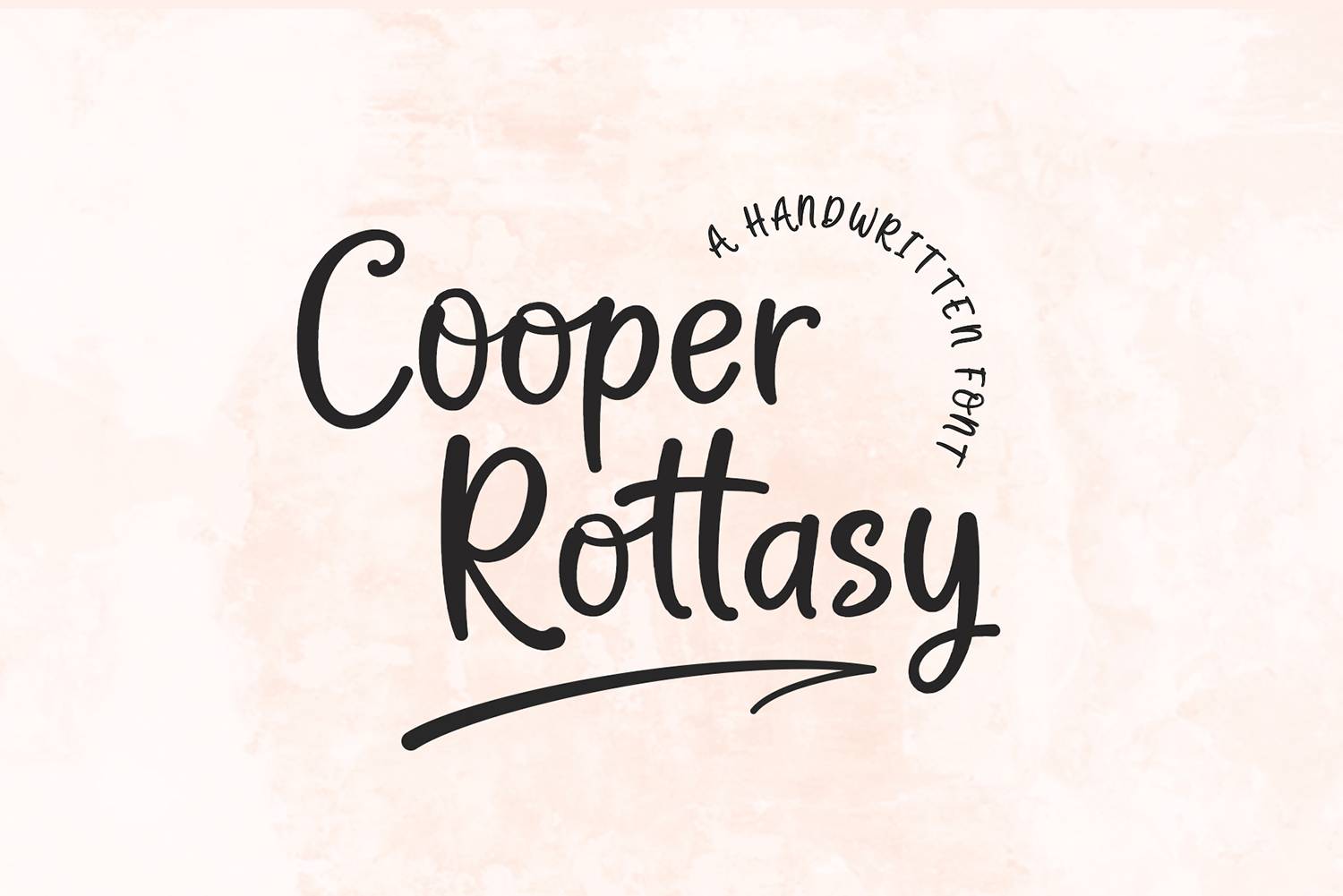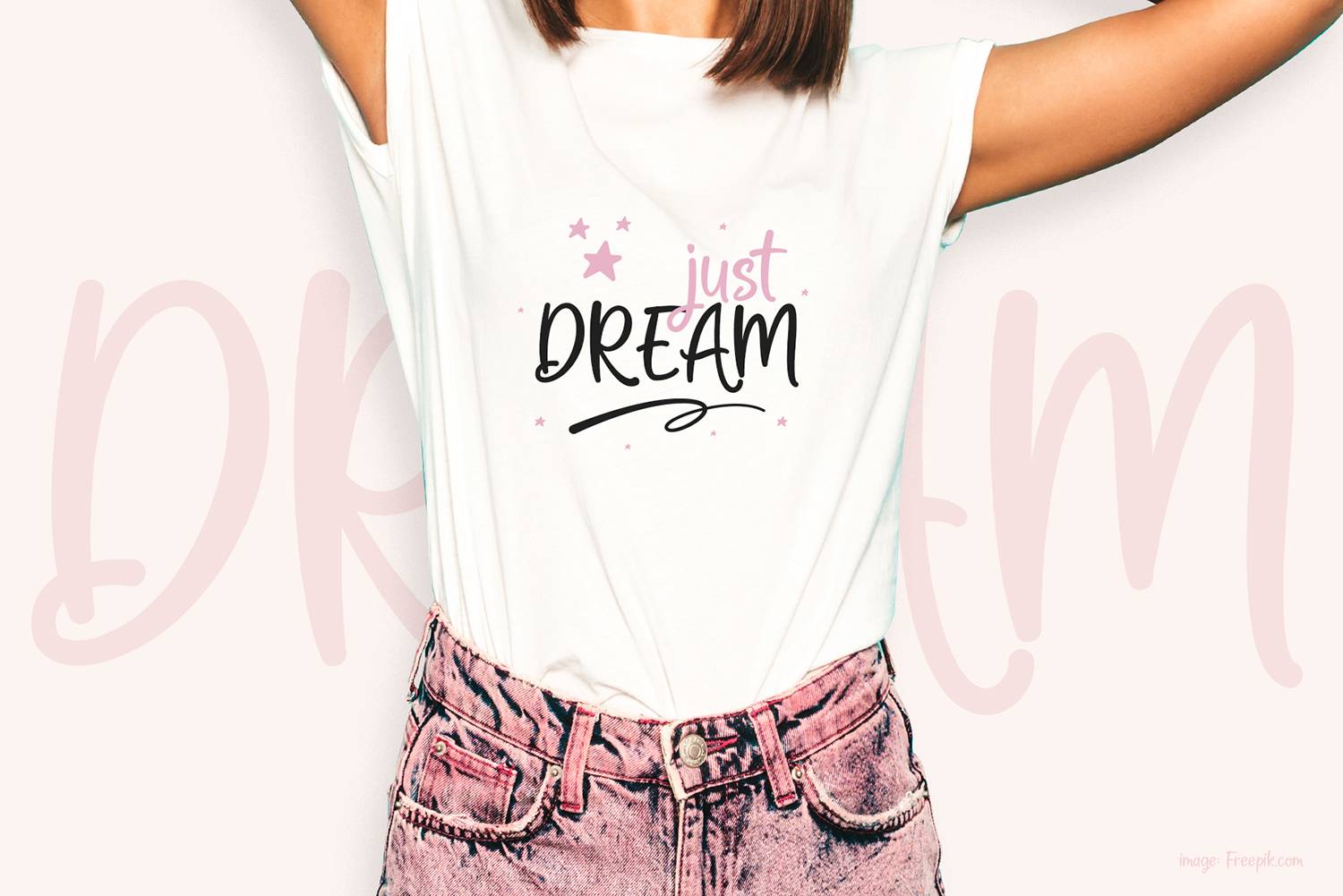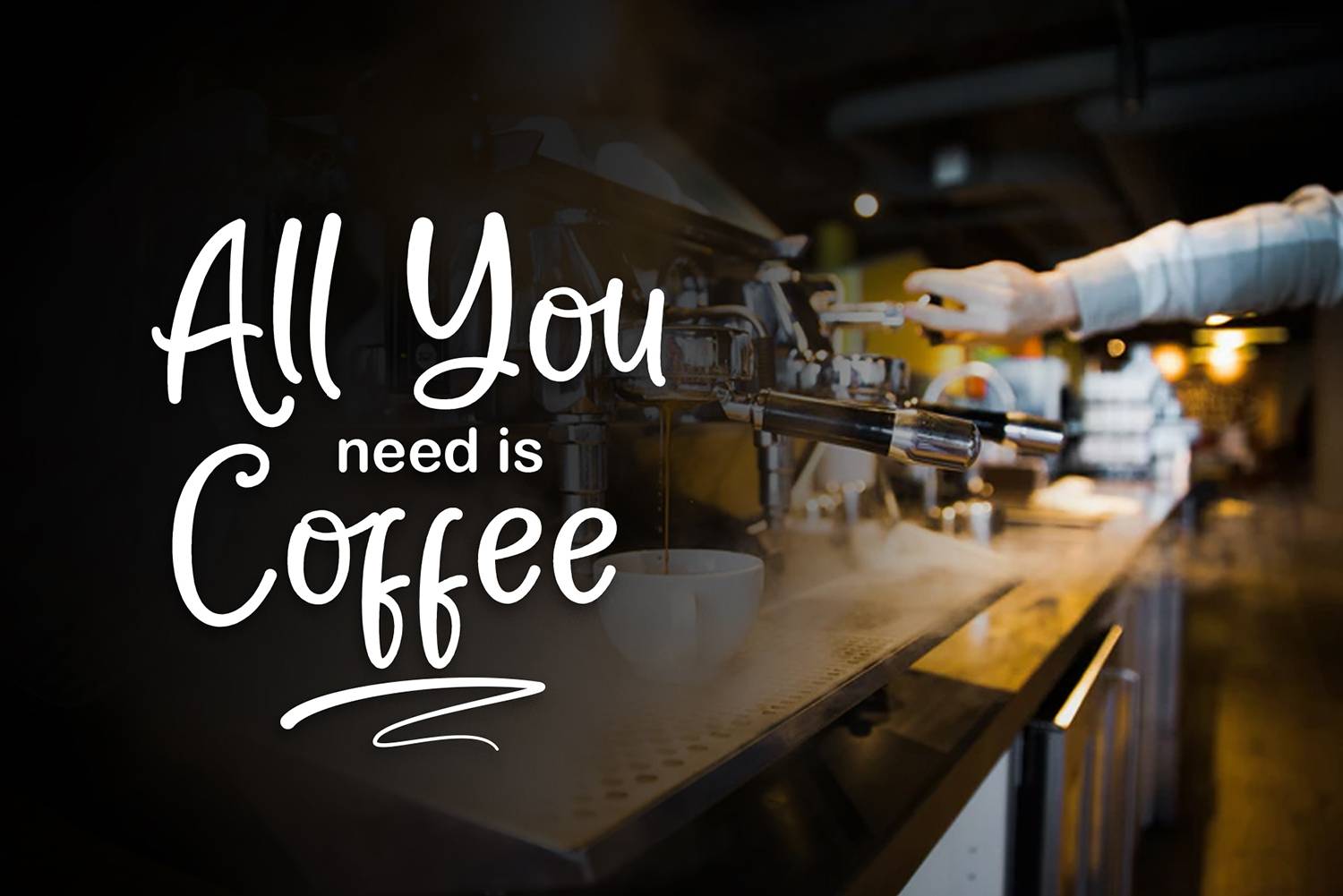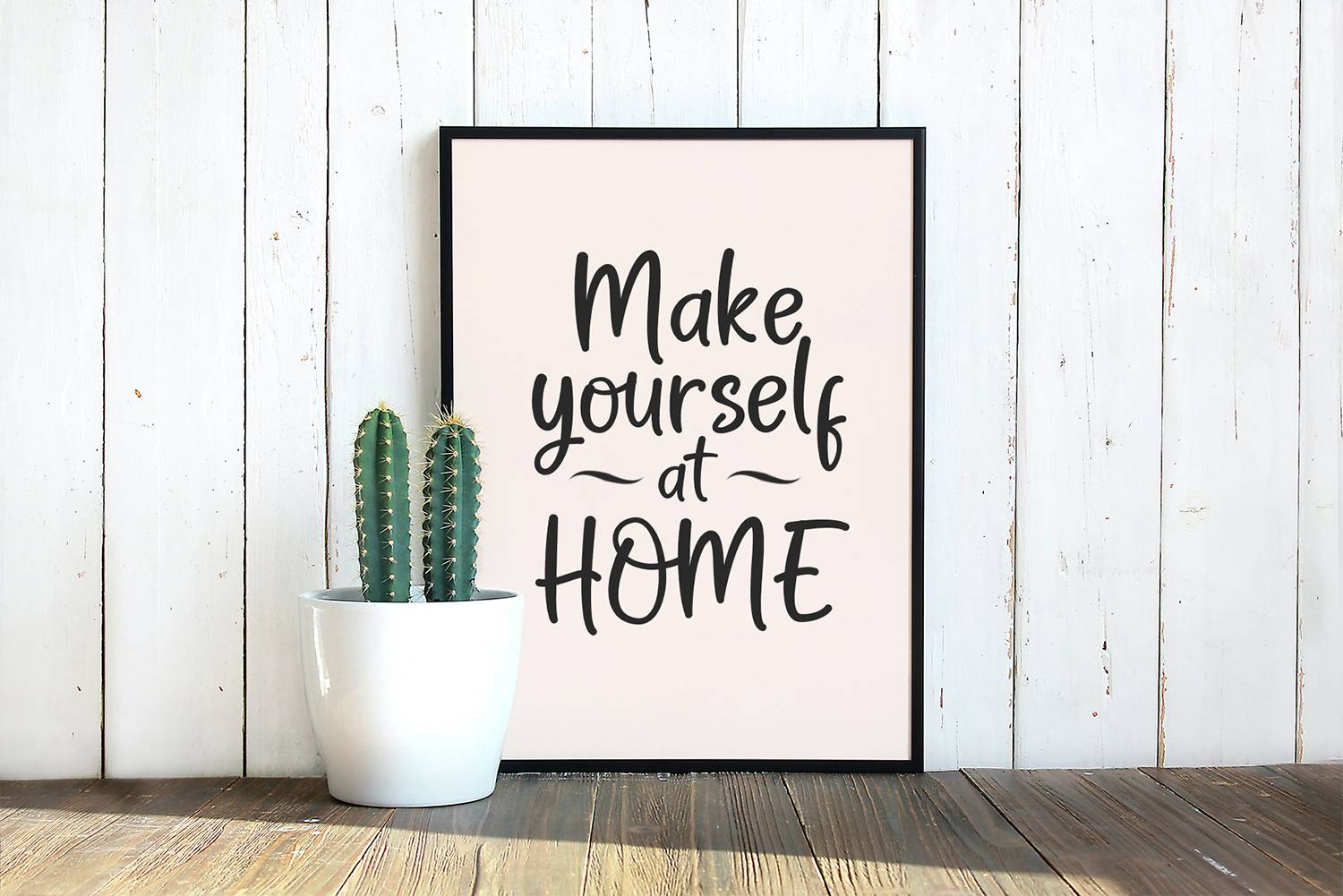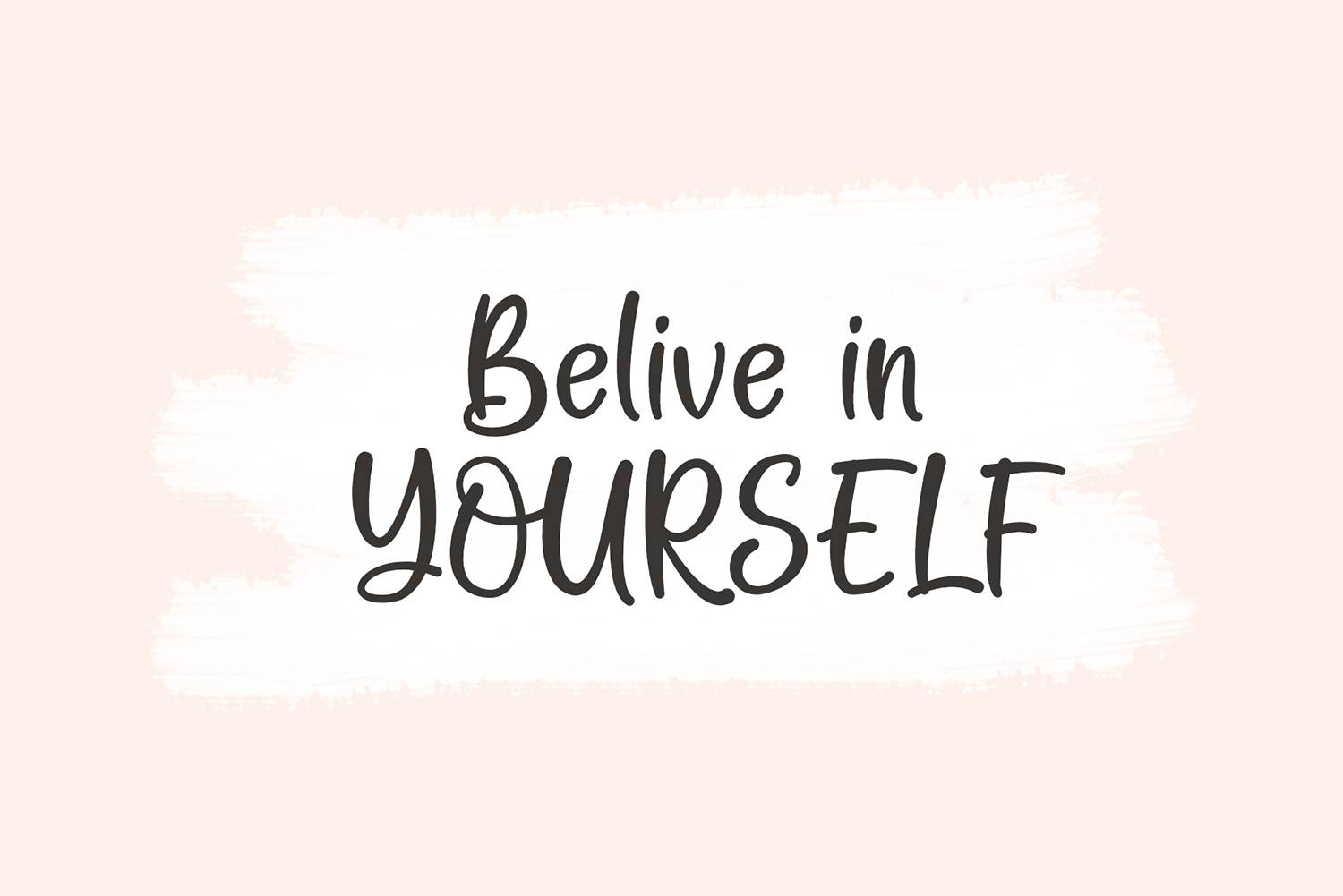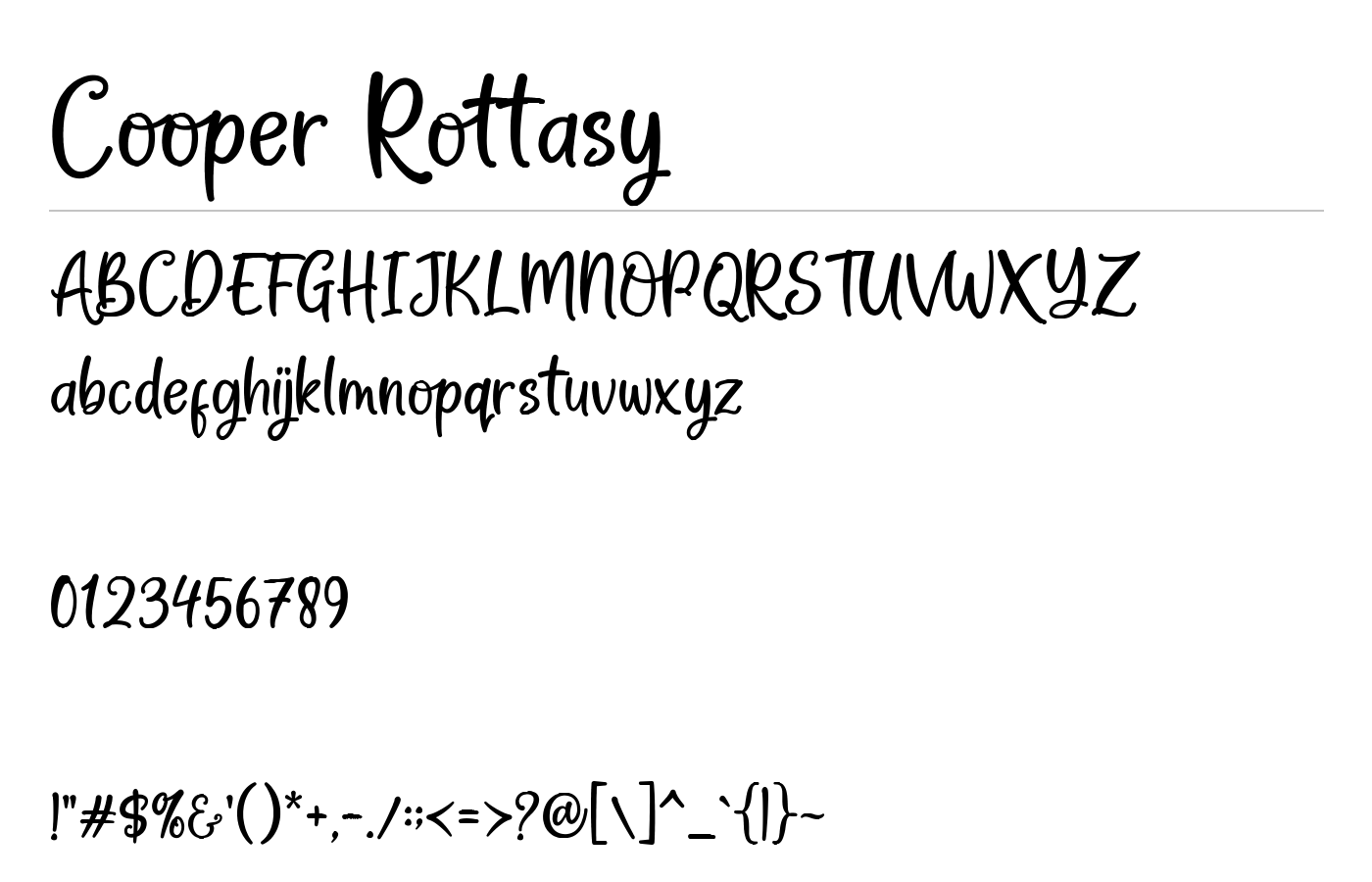
Cooper Rottasy is a playful, handwritten script font with a casual and friendly personality. Its tall, narrow letterforms and lively strokes give it a charming, approachable feel, making it ideal for creative branding, invitations, and informal designs where a personal touch is desired. This font works well in headlines and logos that aim to convey warmth and uniqueness.
Cooper Rottasy Font
About Cooper Rottasy Font
| Font family | Cooper Rottasy Font |
| Designer | Rizaldi Wandani |